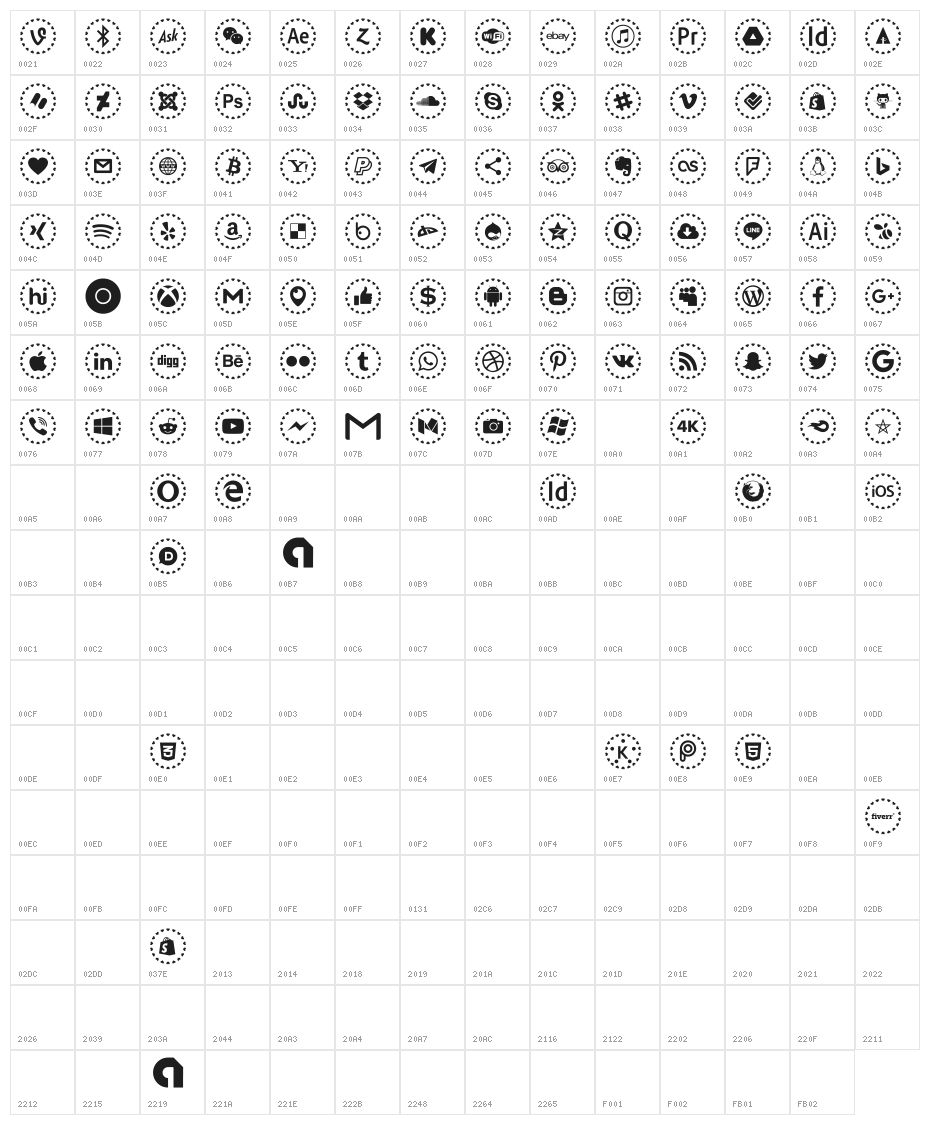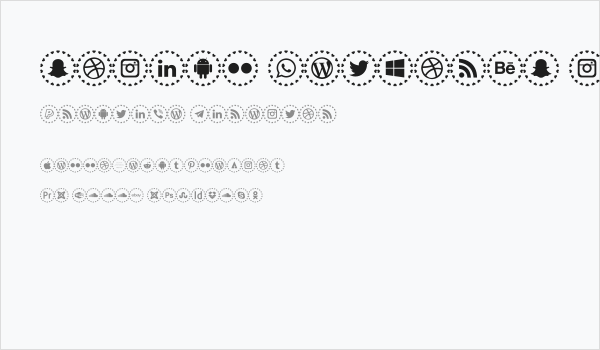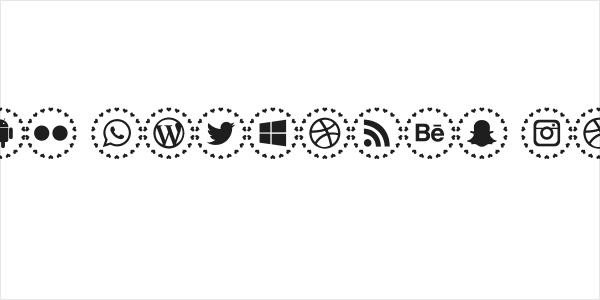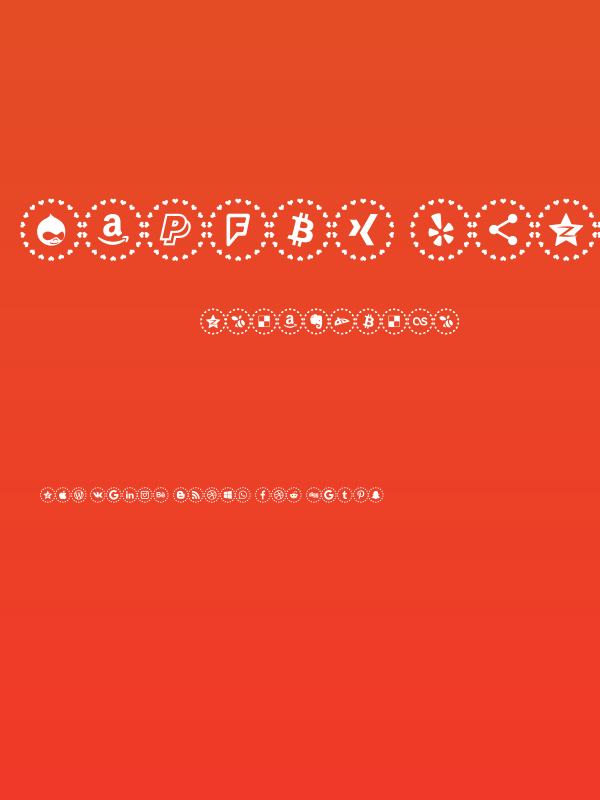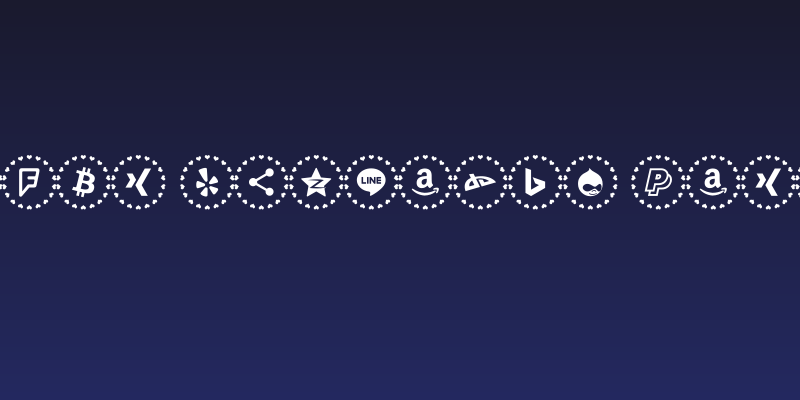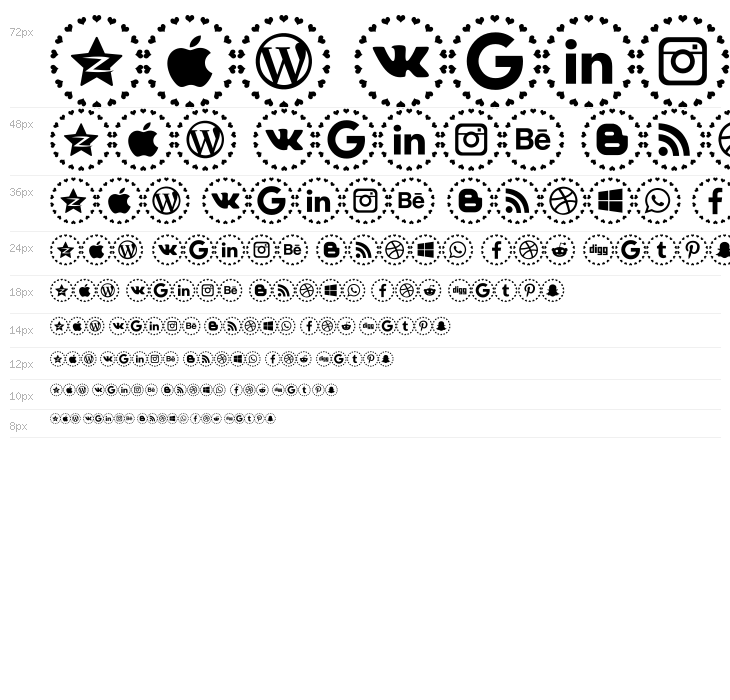
social networks colors Font
social networks colors Description
A decorative icon set featuring various social network and tech company logos, each enclosed in a dotted circular border. The icons are bold, monochromatic, and highly recognizable, designed for visual clarity and uniformity.
| Overall Style | Decorative, Modern |
| Use Case | Icons, UI elements, Social media links |
| Proposed Projects | Websites, app interfaces, social media buttons, presentations, digital marketing materials. |